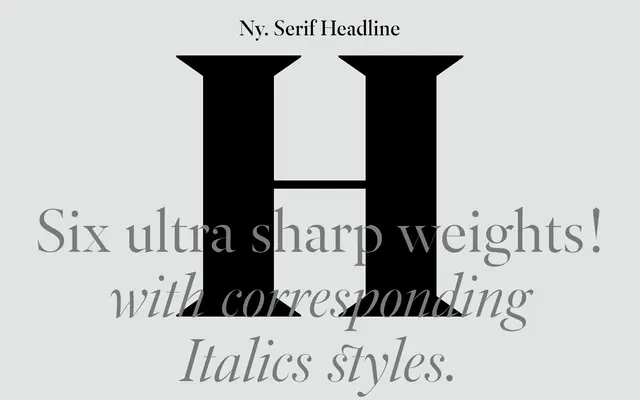
Ny. Serif Headline
A2-Type · Henrik Kubel · 2015
Ny. Serif Headline specimen from A2-Type
A high-contrast editorial serif drawn for the 2015 redesign of The New York Times Magazine, rooted in Stephenson Blake's Mazarin with sharpness borrowed from Gothic Blackletter.
Designed by Henrik Kubel, this headline cut of the Ny. family draws on Stephenson Blake's Garamond-like Mazarin and the contrast and sharpness of the New York Times Magazine's own Gothic Blackletter logotype. Seven weights from Light to Black, each with a matching italic, give it range across scales while its high contrast and editorial origins keep it firmly in large-size magazine and newspaper contexts. The name 'Ny' nods to New York as the typeface's first home, and to 'New' in Danish, Kubel's mother tongue.
Rooted in Stephenson Blake's Mazarin and Garamond-like references, with sharpness and contrast drawn from Gothic Blackletter traditions; optimised explicitly for headline use at display sizes.